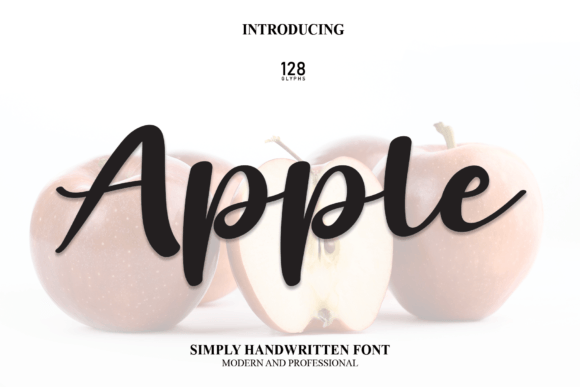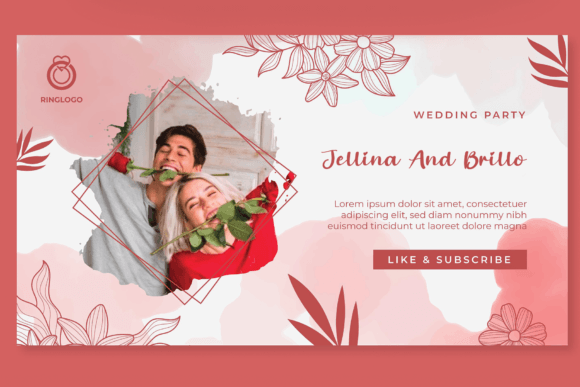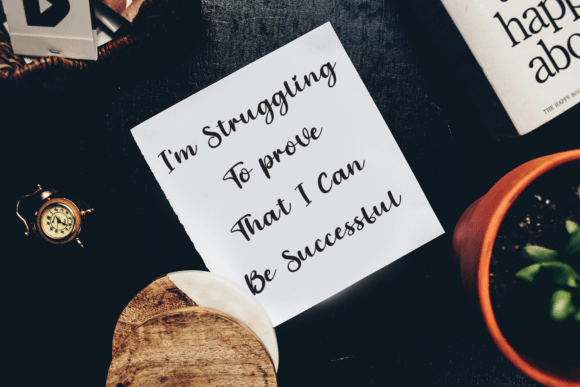
About Apple Font
“Apple” is a stylish handwritten font that exudes a contemporary atmosphere and impeccable form, drawing inspiration from timeless classic calligraphy. Characterized by a balanced and varied design, this font was carefully crafted to enhance the beauty of your projects.
The contemporary vibe of “Apple” is evident in its design, which reflects a modern aesthetic. The handwritten style adds a personal and human touch, making it suitable for a wide range of creative applications. This versatility allows “Apple” to seamlessly adapt to different design contexts, from formal documents to more casual and artistic projects.
Impeccable form is a standout feature of “Apple,” ensuring that each character is meticulously shaped to contribute to the overall visual appeal. The font’s design is thoughtful and well-executed, reflecting a commitment to both style and readability.
The varied and balanced nature of the font enhances its adaptability. Whether used for titles, headings, or body text, “Apple” integrates seamlessly into different design elements. Its ability to add a touch of sophistication while maintaining a contemporary feel makes it suitable for diverse projects, from branding to promotional materials.
In summary, “Apple” is more than just a font; it’s a stylish design tool crafted to enhance the beauty of your projects. With a blend of contemporary aesthetics and timeless calligraphic inspiration, “Apple” becomes a valuable asset for creating designs that are both modern and elegant.